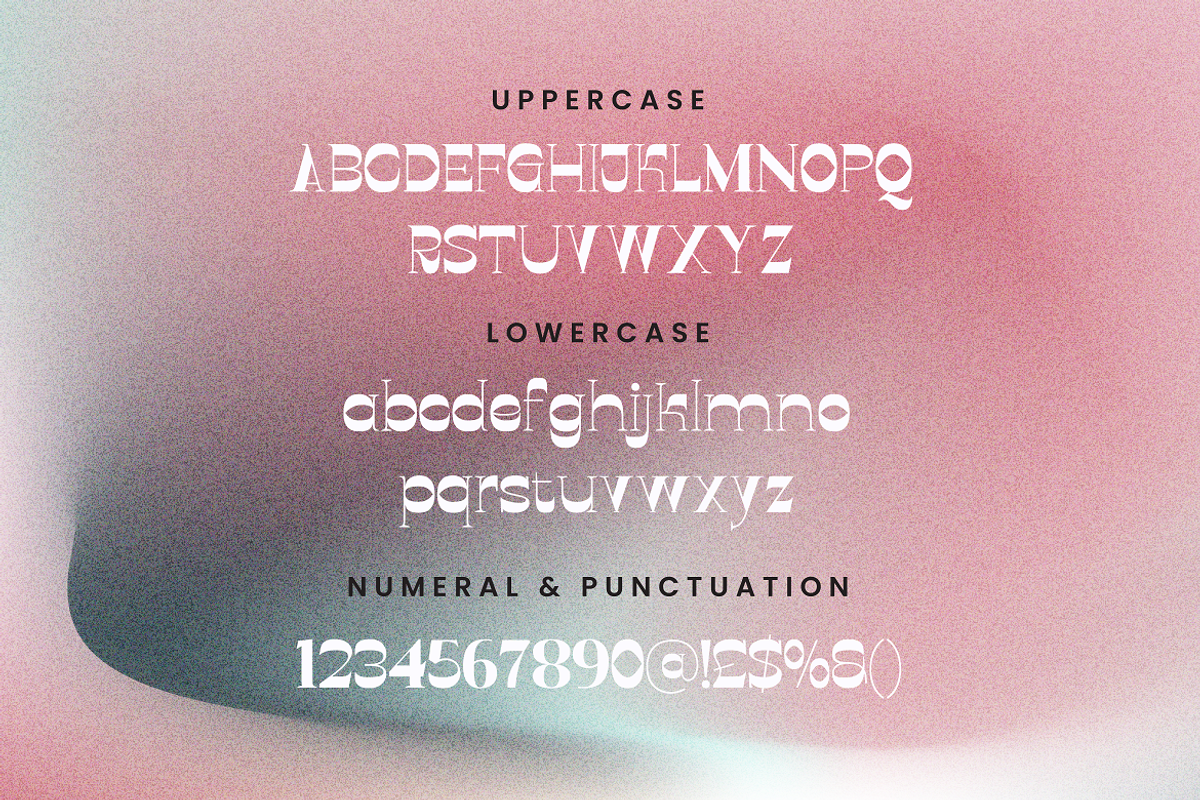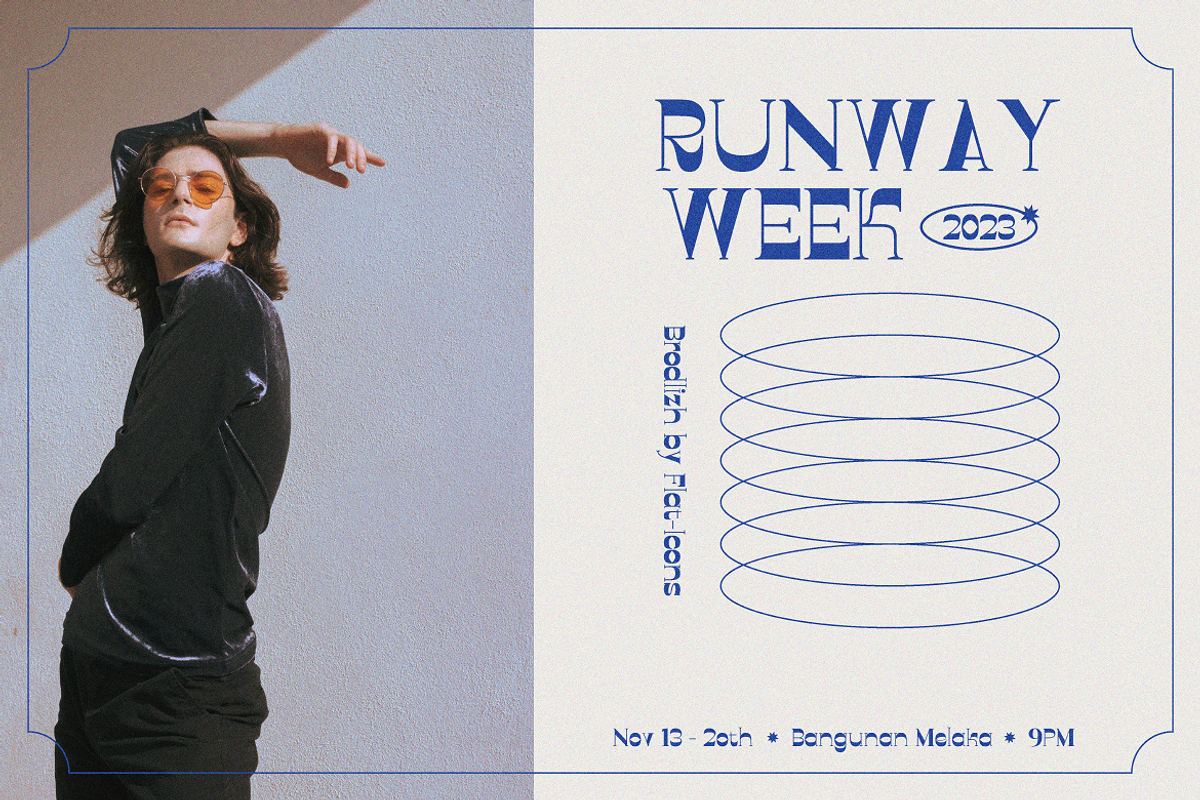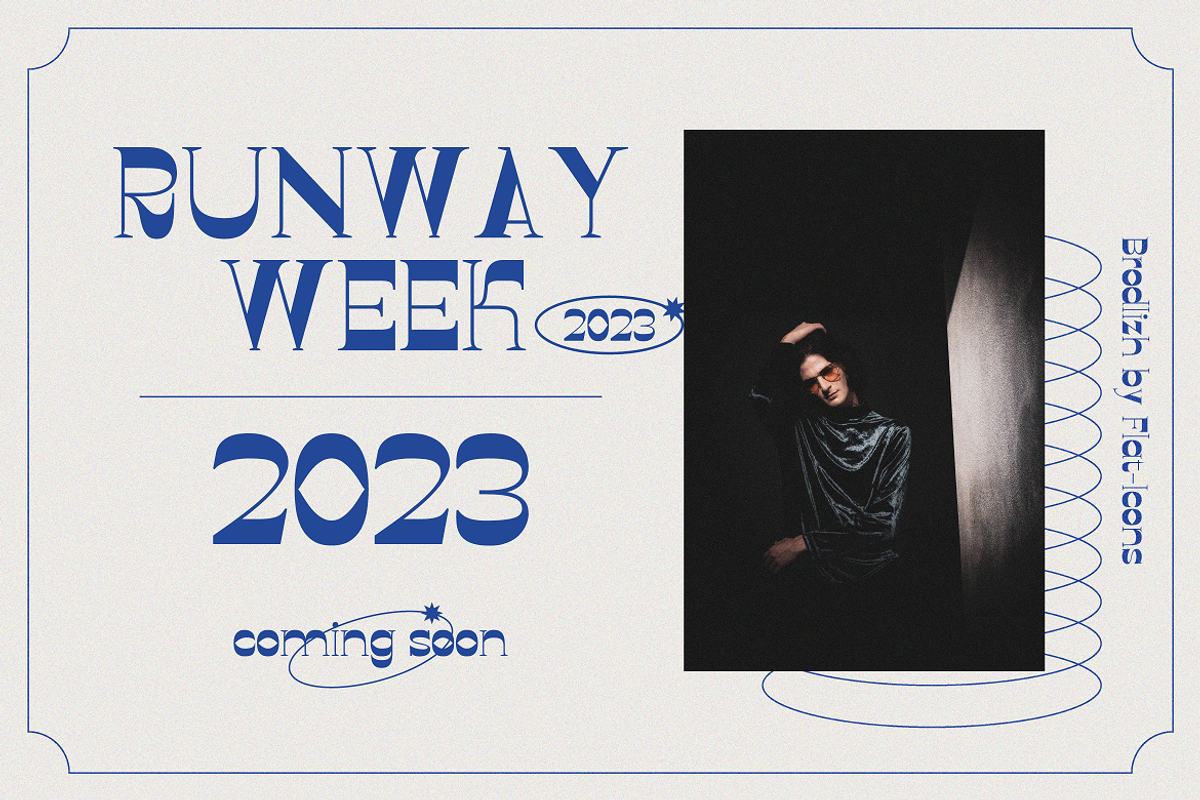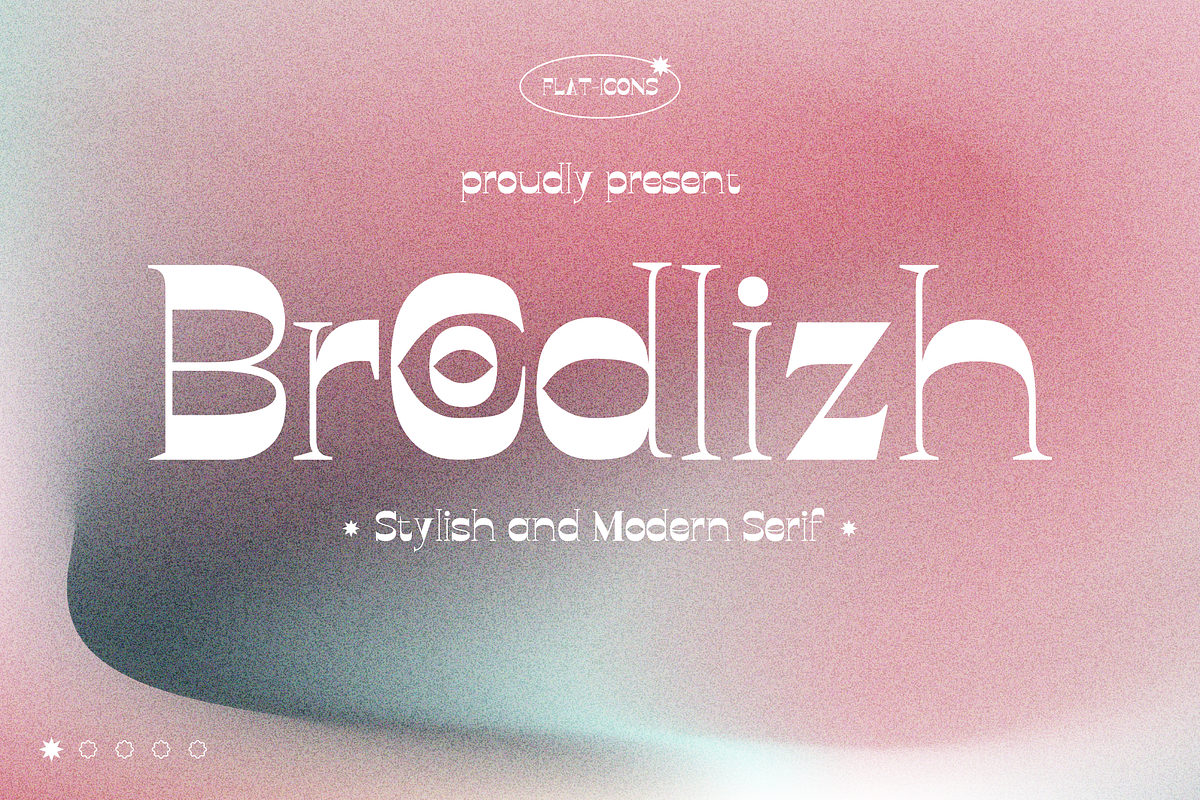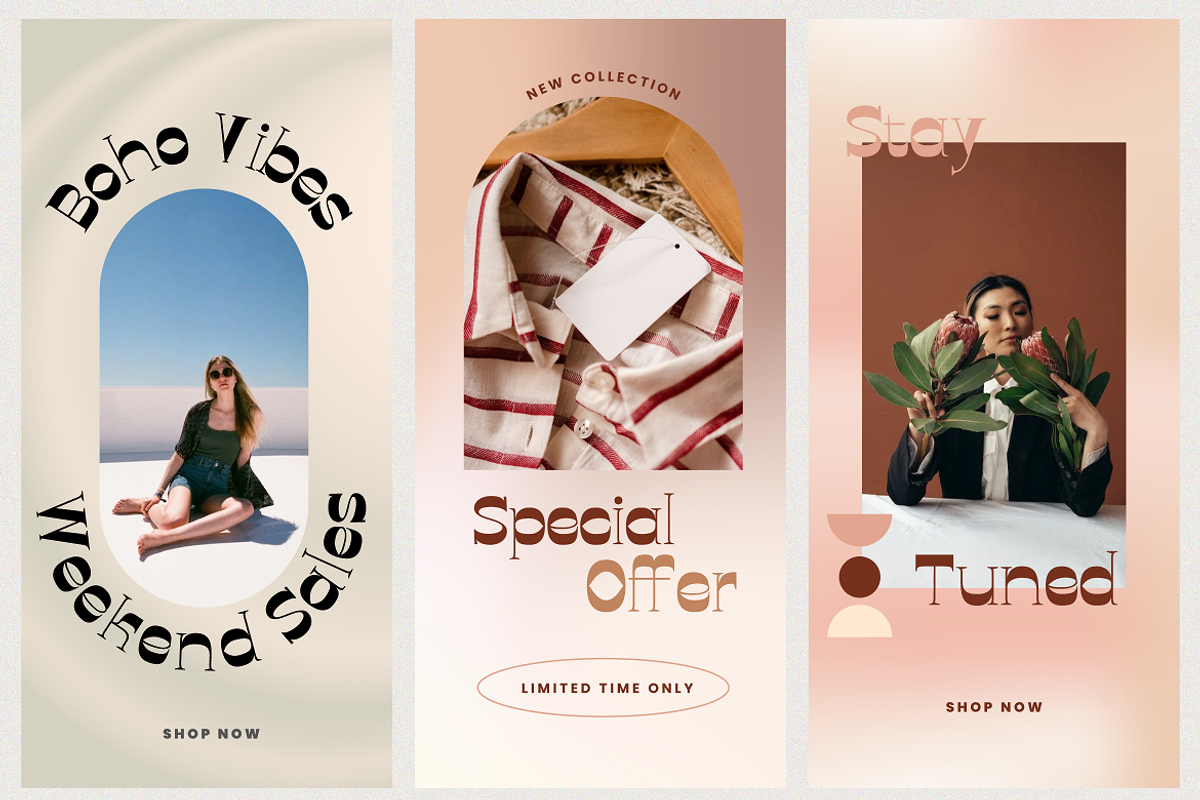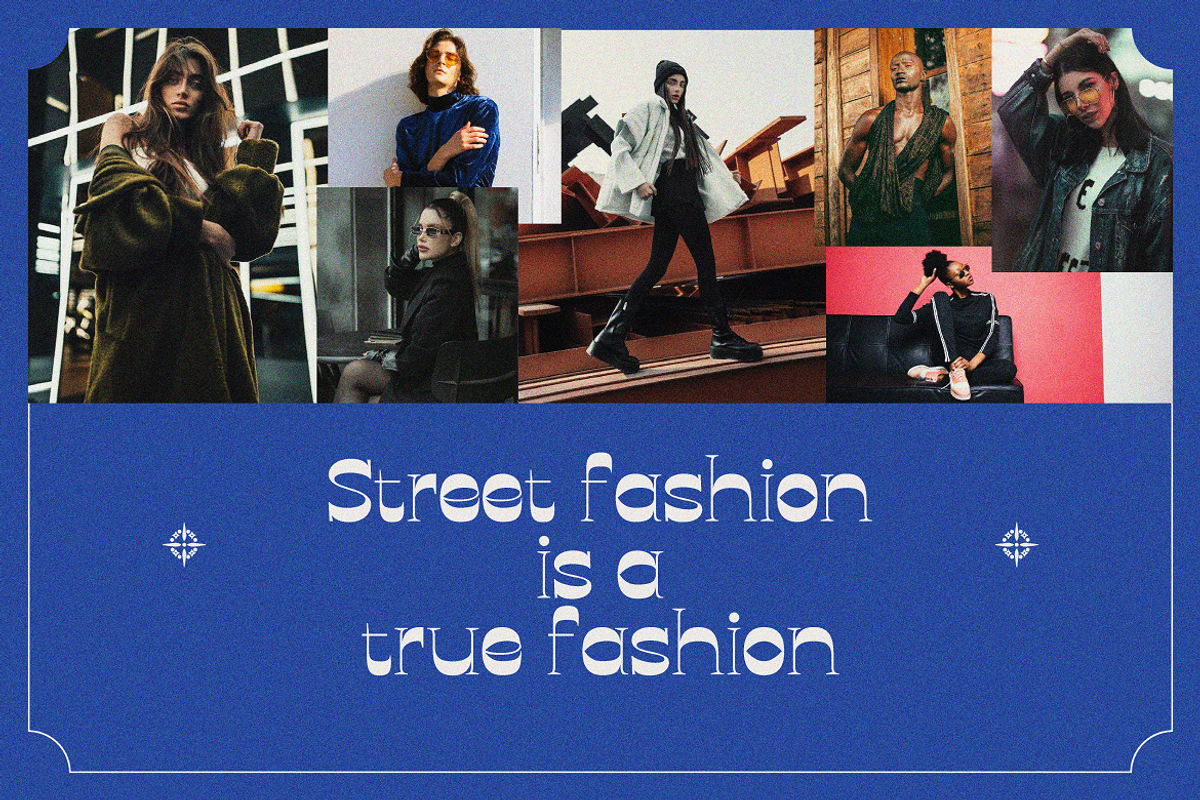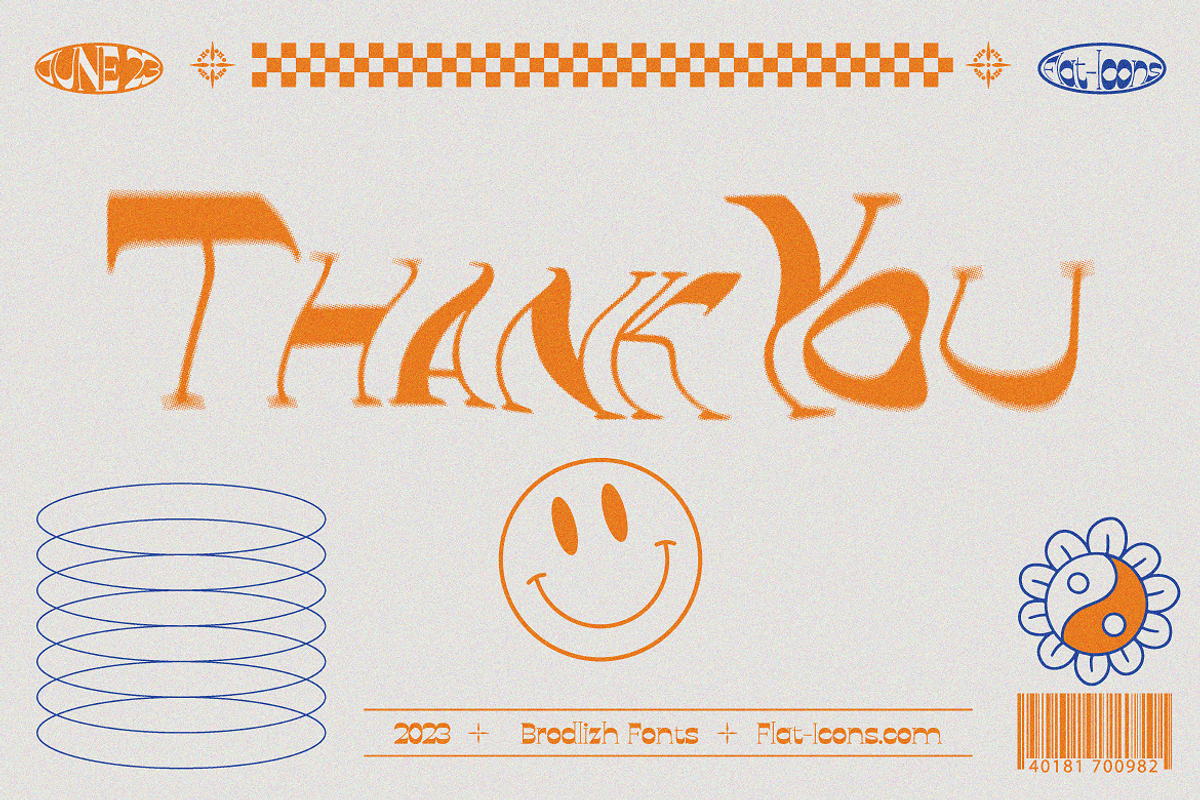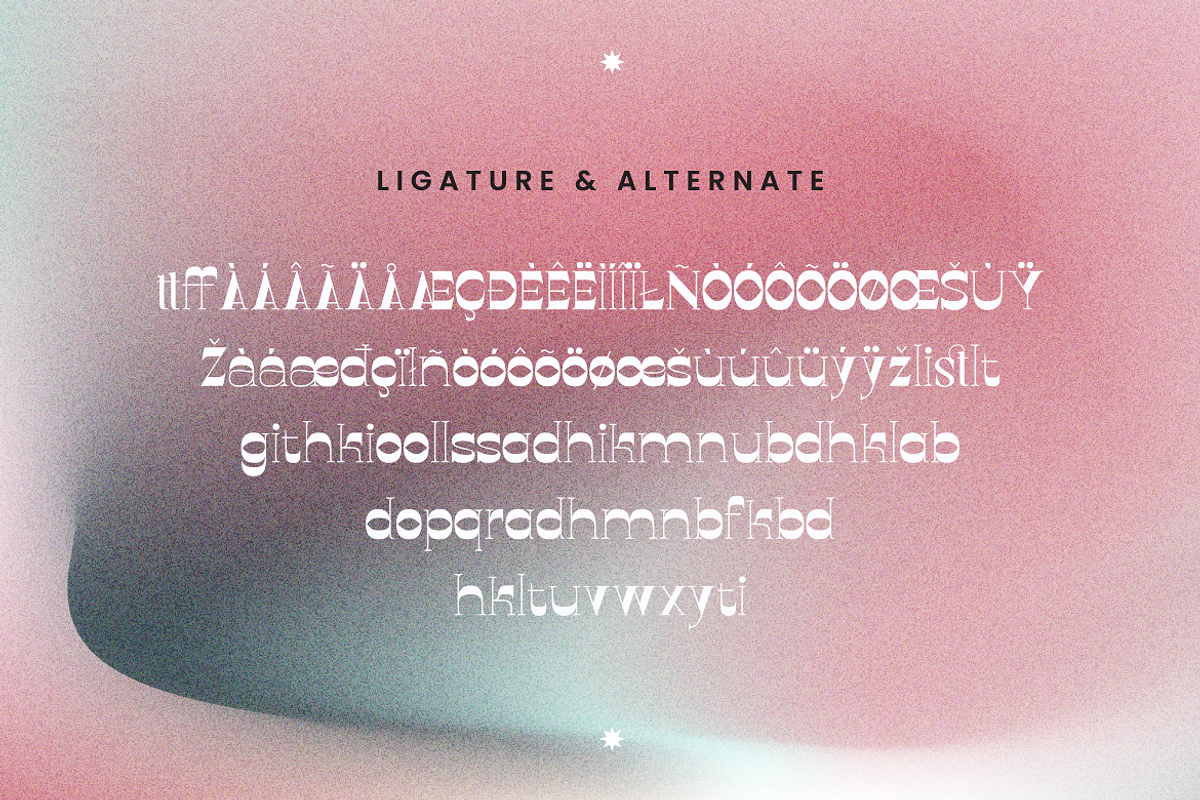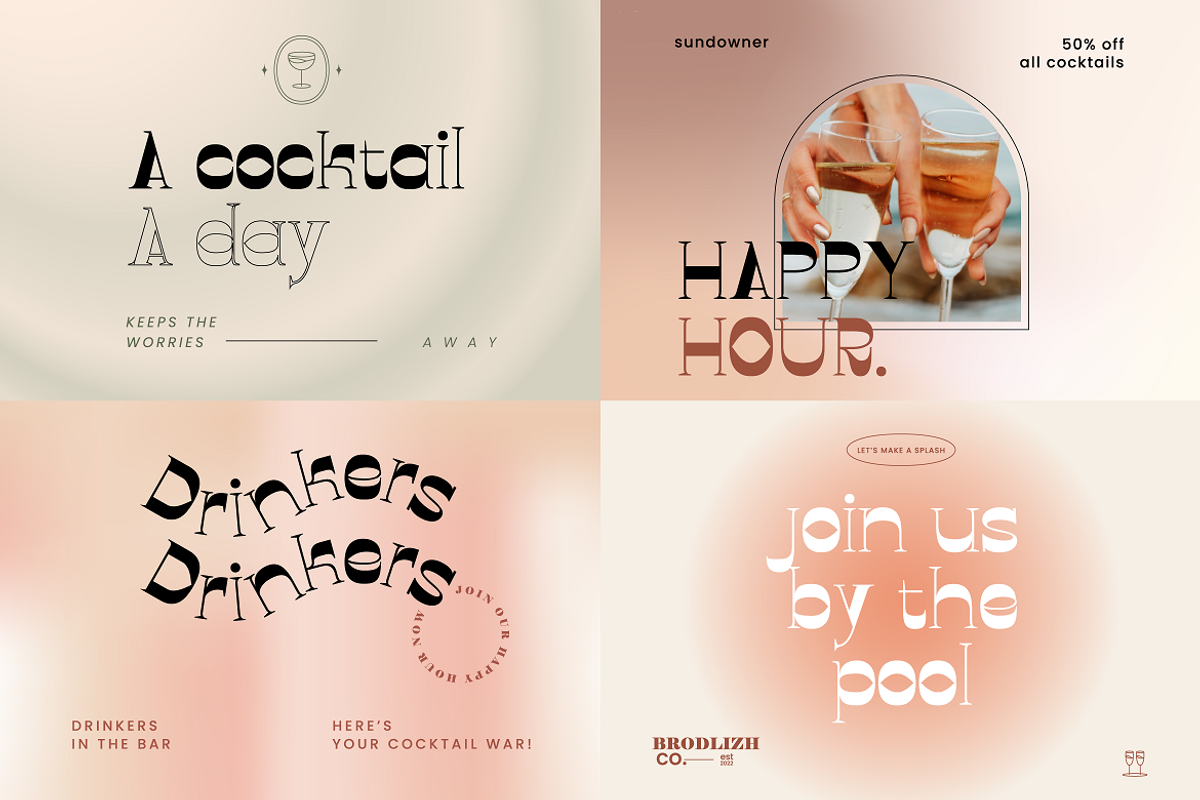
Stylish and Modern Serif Font
Looking for a font that combines elegance with contemporary trends? Digital or print, we’ve got a fresh font that can stand up to the task.
Introducing Brodlizh - a Stylish and Modern Serif.
Sharp, sophisticated, and fashionable, Brodlizh aligns perfectly with modern brands. From logos and branding to invitations and packaging, this serif will give a soul to your design.
- Multilingual & Ligature Support
- Full sets of Punctuation and Numerals